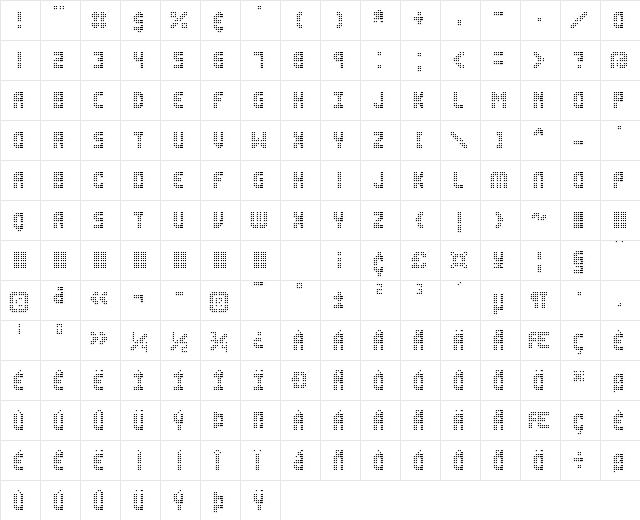
Edit Undo Dot BRK Regular
Design Context for Edit Undo Dot BRK Typeface
Edit Undo Dot BRK is rooted in pixel-grid construction, making it a natural fit for game UI, retro computing aesthetics, and digital nostalgia projects.
A natural choice for retro game titles, chiptune music branding, 8-bit UI, and digital nostalgia projects.
Pro Tip: Pair Edit Undo Dot BRK with flat colour palettes and simple geometric UI elements to reinforce its digital aesthetic.